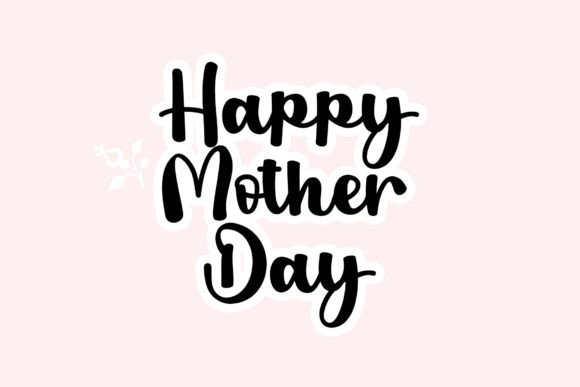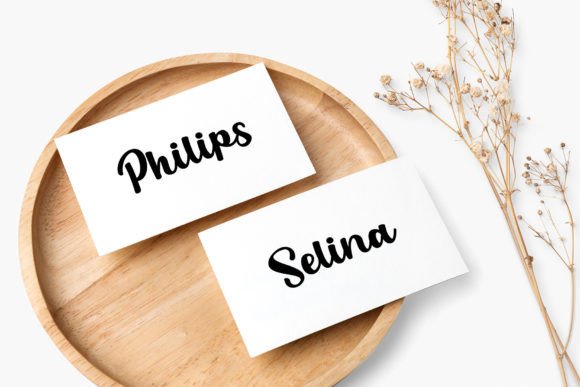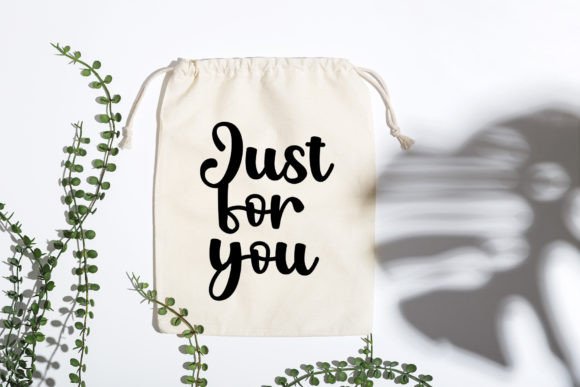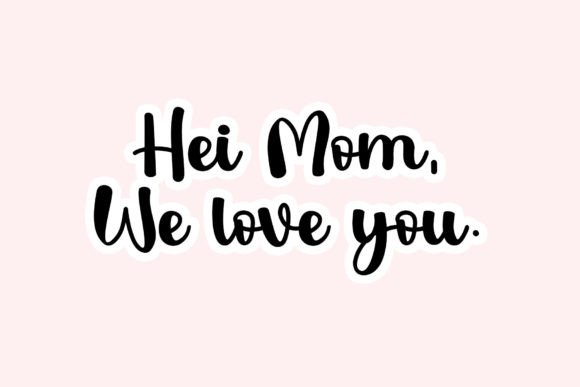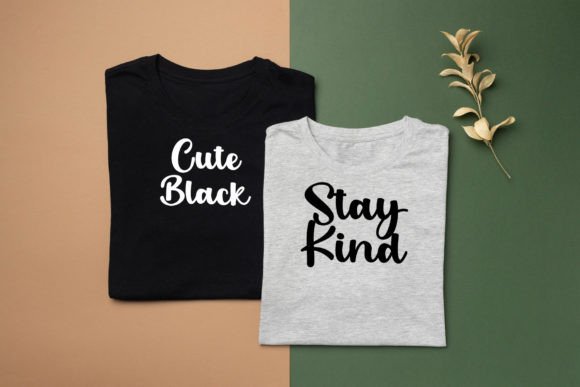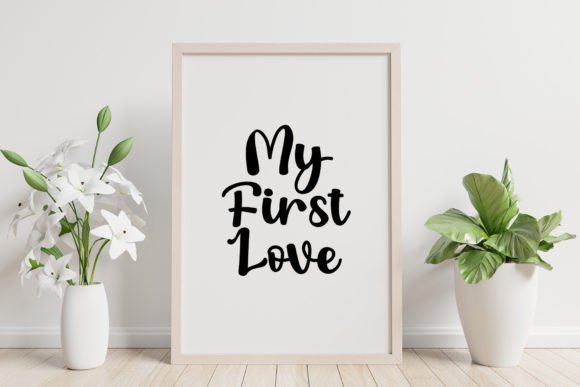
Introducing Beauty Mother Font: The Epitome of Romantic and Elegant Calligraphy
In the realm of typography, few fonts capture the essence of romance and elegance as beautifully as the Beauty Mother Font. This stunning calligraphy typeface has been designed to evoke a sense of sophistication and charm, making it an ideal choice for a wide range of creative projects. Whether you’re a designer looking for the perfect font for a client’s wedding invitation or a crafter seeking a stylish and elegant font for your handmade products, Beauty Mother Font is sure to impress.
What Makes Beauty Mother Font So Special?
Beauty Mother Font is a romantic and graceful calligraphy typeface that boasts a unique and distinctive style. Its elegant lines, flowing curves, and intricate details make it a true masterpiece of typographic design. This font is perfect for anyone looking to add a touch of sophistication and luxury to their projects. With its beautiful and refined aesthetic, Beauty Mother Font is sure to elevate your designs to new heights.
Versatility at Its Best: Endless Uses for Beauty Mother Font
One of the best things about Beauty Mother Font is its incredible versatility. This amazing font can be used for a wide range of purposes, including:
- Logos: Create a stunning logo for your business or brand with Beauty Mother Font.
- Wedding Invitations: Make your wedding invitations truly special with this beautiful calligraphy font.
- Headings: Add a touch of elegance to your headings and titles with Beauty Mother Font.
- T-Shirts: Design stylish and fashionable t-shirts with this amazing font.
- Letterhead: Create professional and elegant letterheads with Beauty Mother Font.
- Signage: Make your signs and banners stand out with this stunning calligraphy font.
- Labels: Design beautiful and stylish labels for your products with Beauty Mother Font.
- News: Add a touch of sophistication to your news articles and publications with this elegant font.
- Posters: Create eye-catching posters and flyers with Beauty Mother Font.
- Badges: Design stunning badges and awards with this beautiful calligraphy font.
Why Designers and Crafters Love Beauty Mother Font
Beauty Mother Font has quickly become a favorite among designers and crafters, and for good reason. This amazing font offers a range of benefits, including:
- Elegant and sophisticated design
- Highly versatile and adaptable
- Perfect for a wide range of creative projects
Tips and Tricks for Using Beauty Mother Font
To get the most out of Beauty Mother Font, here are a few tips and tricks to keep in mind:
- Use it sparingly: While Beauty Mother Font is stunning, it can be overwhelming if used too much. Use it sparingly to create a sense of elegance and sophistication.
- Pair it with other fonts: Experiment with pairing Beauty Mother Font with other fonts to create a unique and interesting look.
- Adjust the size and color: Play around with different sizes and colors to find the perfect combination for your project.
In conclusion, Beauty Mother Font is a truly special font that offers a unique and elegant solution for designers and crafters. With its romantic and graceful calligraphy style, this font is perfect for a wide range of creative projects. Whether you’re looking to create a stunning logo, a beautiful wedding invitation, or a stylish t-shirt, Beauty Mother Font is sure to impress. So why wait? Download Beauty Mother Font today and start creating your own stunning designs!